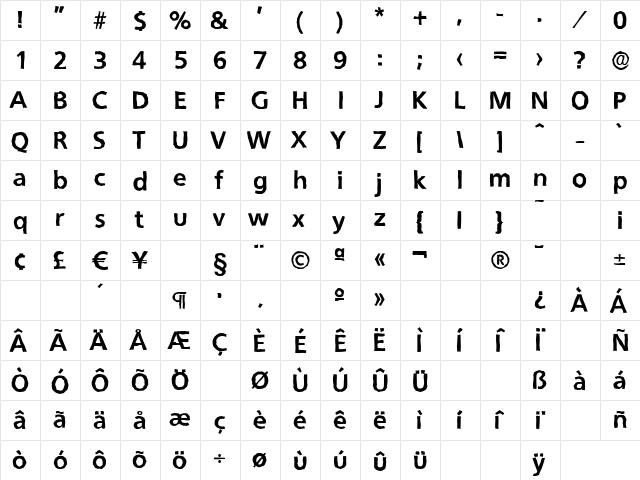
QuebecAntique-Xbold Regular
Design Context for QuebecAntique-Xbold Typeface
QuebecAntique-Xbold wears its vintage influences proudly, with letterforms that recall mid-century signage, classic packaging, and nostalgia-driven design. Its bold stroke weight gives it real presence on the page.
Font Pairing: Combine QuebecAntique-Xbold with a simple slab or neutral sans — period-accurate companions reinforce the vintage feel without competing for attention.
Pro Tip: Use QuebecAntique-Xbold for headlines and pull quotes rather than body copy — its personality is best appreciated in short, focused bursts.